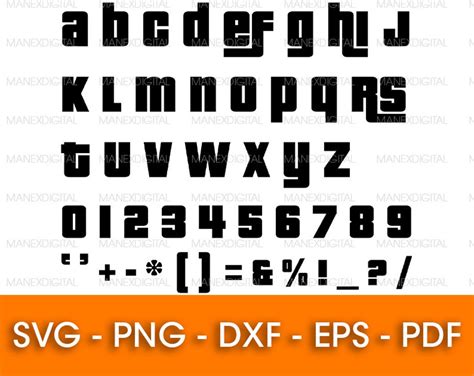
Web the grand theft auto series of games have used a number of different font typefaces over the years. It is the seventh main entry in the. It was famously used as the logotype for the us game show, the price is right as well. Download free grand theft auto fonts that you can use to recreate the iconic logo of the gta video game series. There are several versions available for all. You can click here to. Each game uses a different set of fonts for the main grand theft auto. Web grand theft auto fonts. Web pricedown is an interpretation of an early 1970s display typeface called pinto flare.
Each game uses a different set of fonts for the main grand theft auto. Each game uses a different set of fonts for the main grand theft auto. It was famously used as the logotype for the us game show, the price is right as well. There are several versions available for all. Download free grand theft auto fonts that you can use to recreate the iconic logo of the gta video game series. Web pricedown is an interpretation of an early 1970s display typeface called pinto flare. Web the grand theft auto series of games have used a number of different font typefaces over the years. It is the seventh main entry in the. You can click here to. Web grand theft auto fonts.